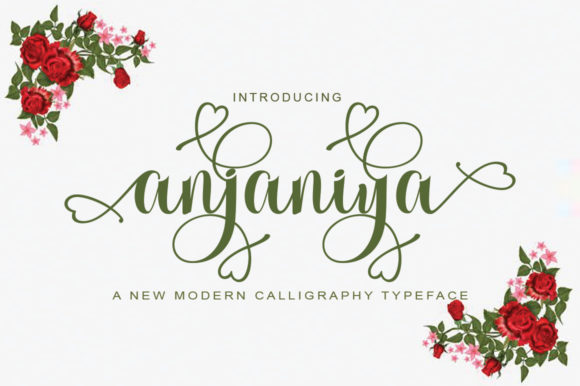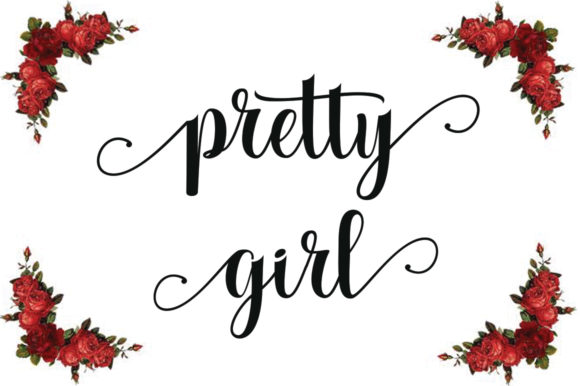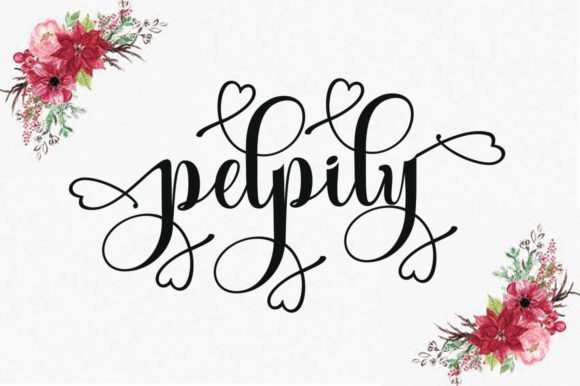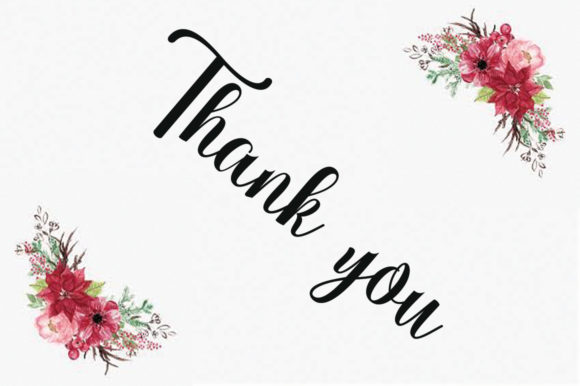
Anjania Font
About Anjania Font
Anjania is a beautiful modern handwritten font ready to be used in your next designs.
This font can be used in a wide variety of applications from logos, wedding invitations to book covers and more, the only limit is your imagination!